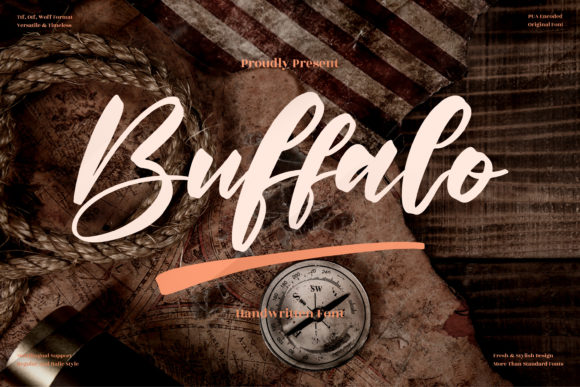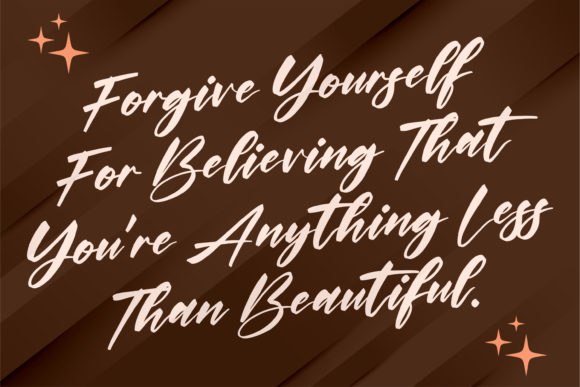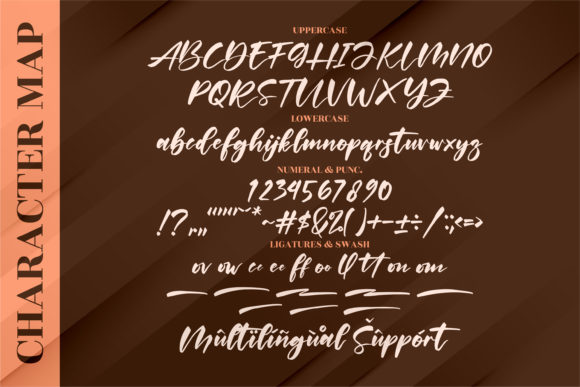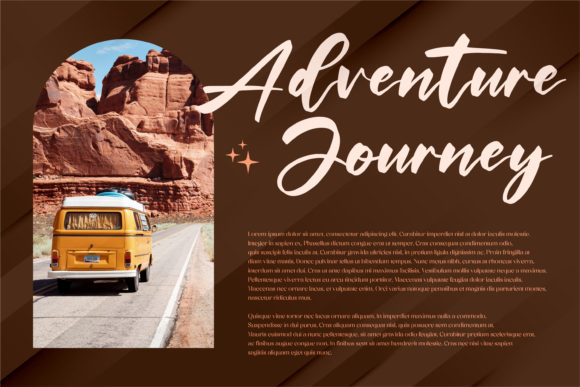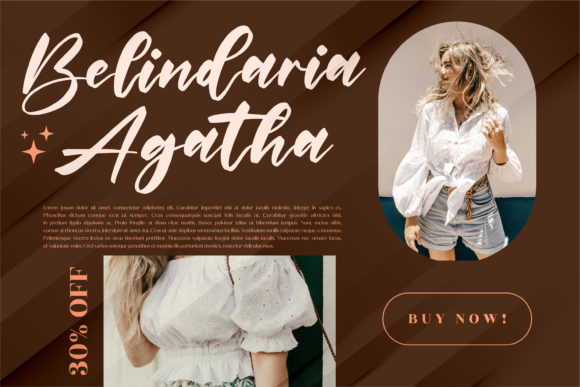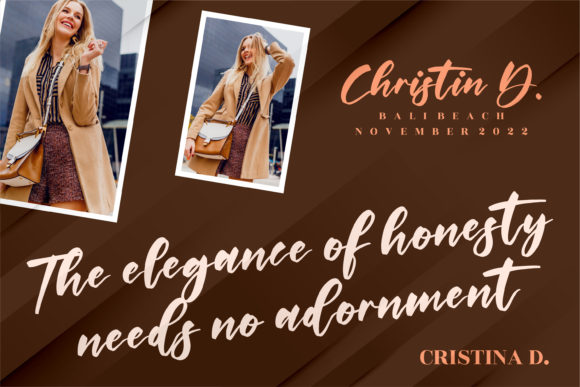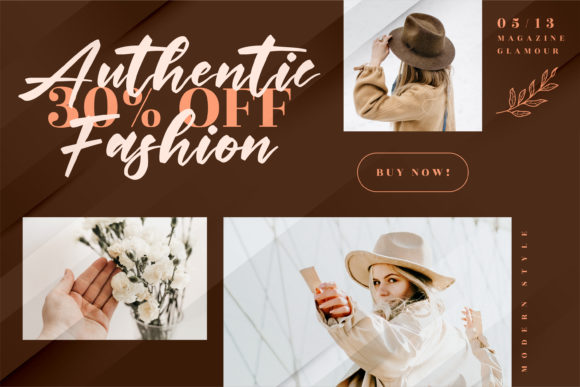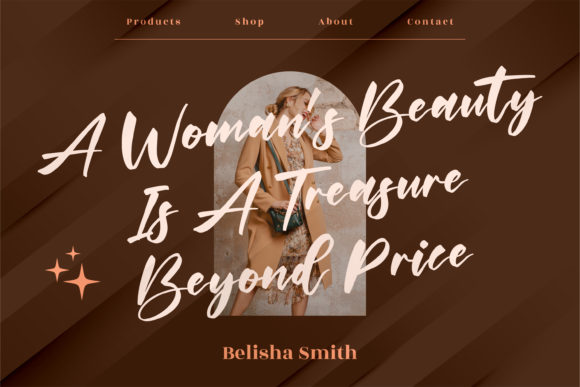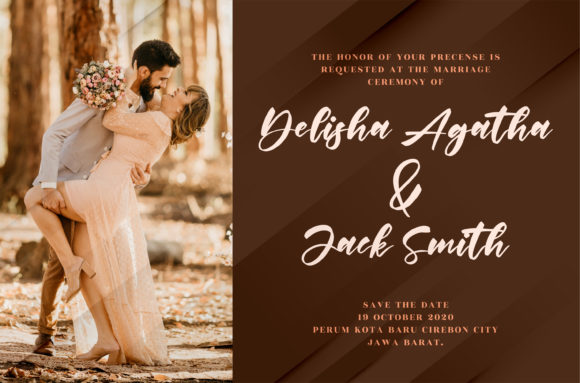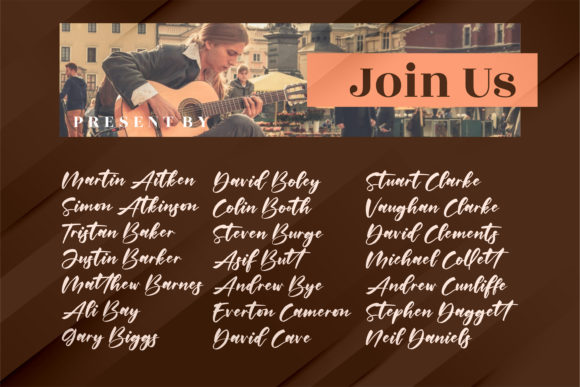
Buffalo Font
About Buffalo Font
Buffalo is a chic, refined script font that emanates sophistication and elegance. Its stylish alternates and ligatures make this font the perfect match for any project.